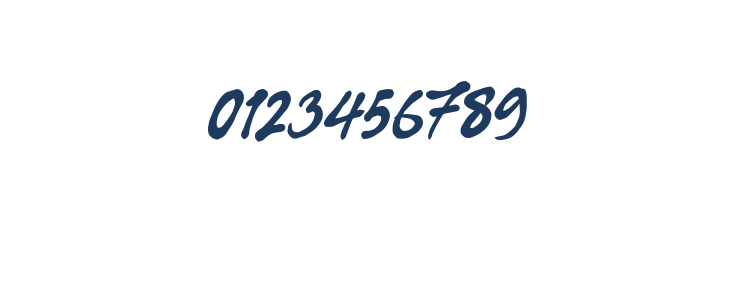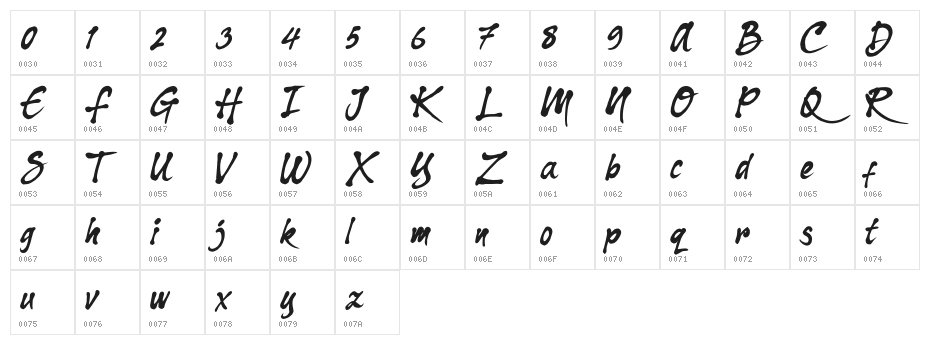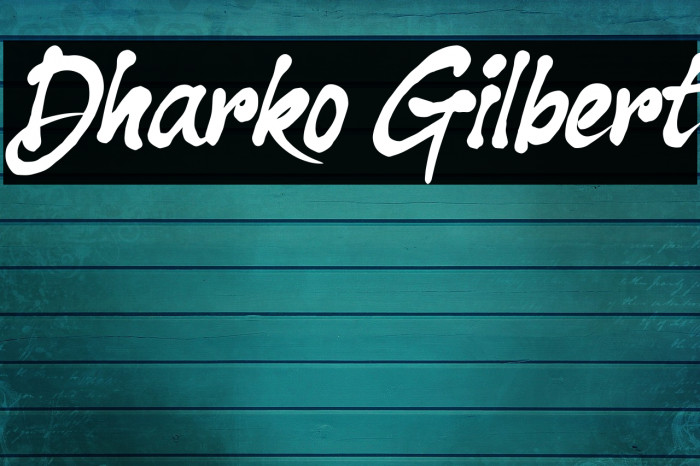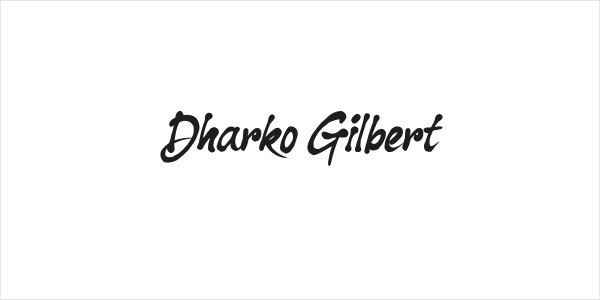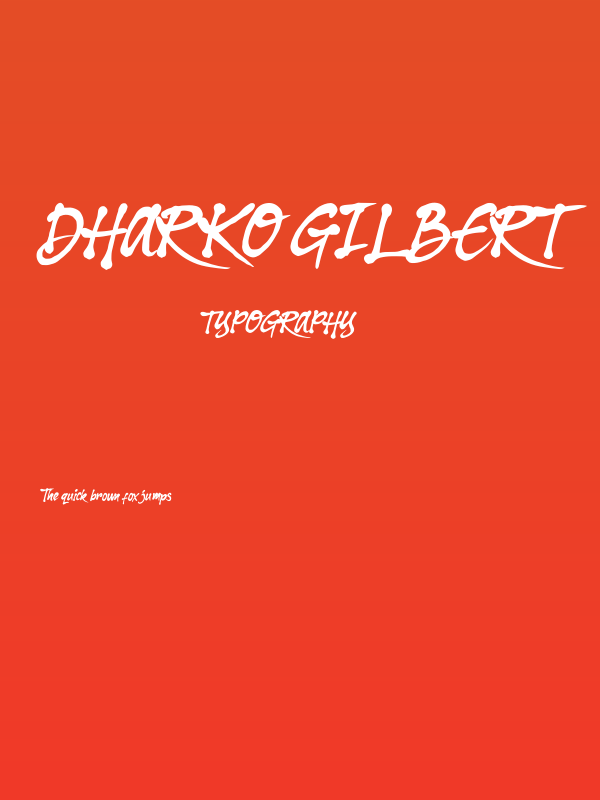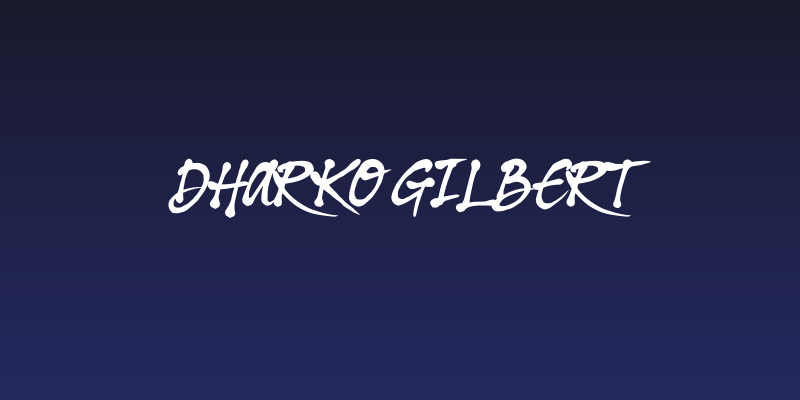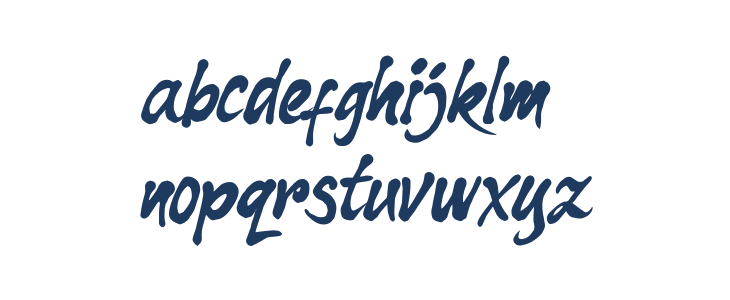
Dharko Gilbert Font
Dharko Gilbert Description
This font exhibits a bold, expressive style with a handwritten flair. The characters are fluid and dynamic, featuring sweeping curves and varying stroke widths that give it a lively and energetic appearance. The uppercase letters are particularly striking, with dramatic flourishes that add a sense of movement and personality. The lowercase letters maintain this dynamic quality, ensuring consistency throughout the typeface. Numbers and special characters are designed with the same attention to detail, making them cohesive with the overall style. This font is ideal for projects that require a personal touch or a sense of creativity and spontaneity.
| Use Case | Logos, Headlines, Artistic designs |
| Proposed Projects | Ideal for creative projects such as invitations, posters, branding, and artistic designs. |